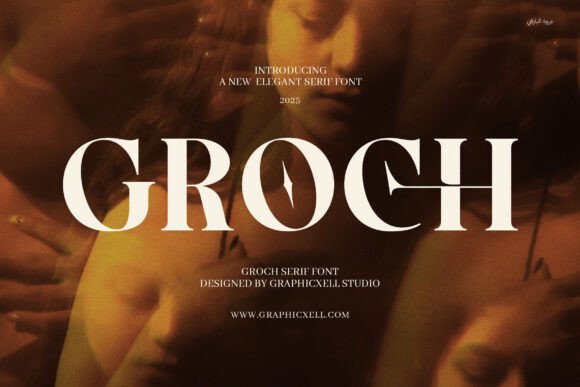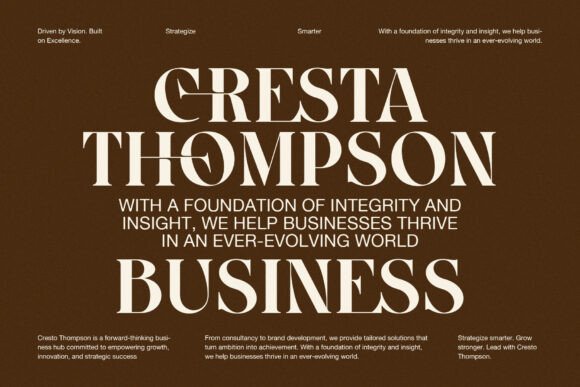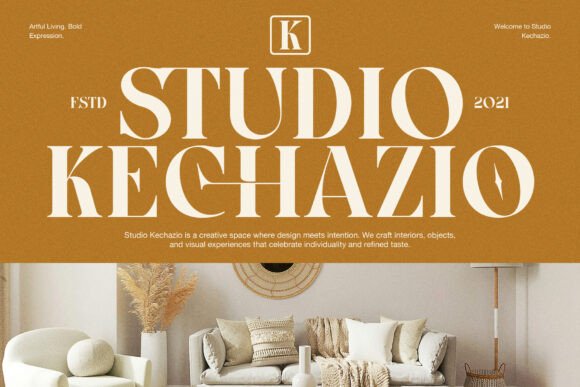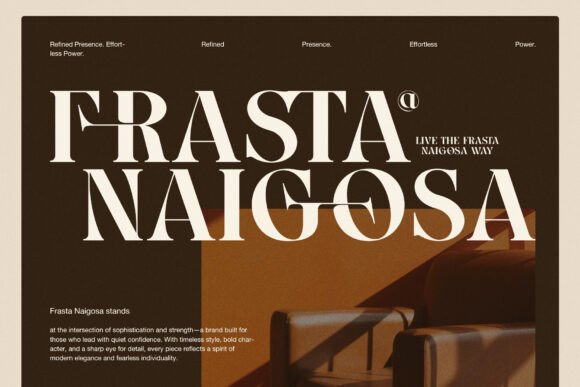
Groch Font: Elegant Serif Typography for Modern Branding & Logo Design
About the Groch Font
Meet Groch Font, a stunning font that brings a touch of elegance and professionalism to any design. Introducing **Groch Elegant Serif Font** – a refined and contemporary serif typeface designed to elevate your projects with sophistication and style. Groch Elegant combines timeless serif characteristics with a modern twist, making it the perfect choice for creating memorable, high-end designs.
Crafted with meticulous attention to detail, this font exudes elegance, making it ideal for use in luxury branding, chic boutiques, upscale websites, and high-quality editorial layouts. Its striking yet balanced letterforms convey both professionalism and artistry, making it a versatile option for logos, product packaging, advertisements, and more.
The Groch Elegant Serif Font features a harmonious blend of traditional serifs and clean, modern lines, offering a perfect mix of readability and refinement. Its unique character set makes it well-suited for a wide range of applications, from fashion and beauty to food and lifestyle industries. Whether you’re designing a premium product line, a sleek magazine layout, or an eye-catching website, Groch Elegant adds a touch of class that resonates with a contemporary audience.
With its carefully crafted strokes and versatile design, Groch Elegant is the go-to choice for projects that demand a blend of timeless charm and modern flair. Make your brand stand out and leave a lasting impression with this sophisticated font. Perfect for those looking to bring a polished and upscale look to their visual identity, Groch Elegant Serif Font is your ultimate design companion.
Groch Font Example